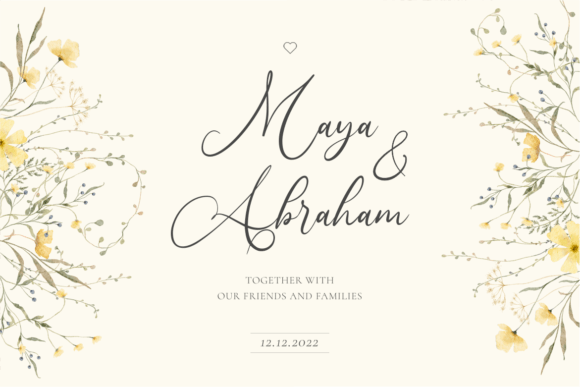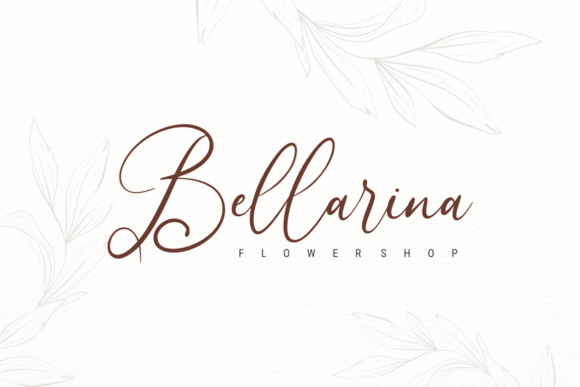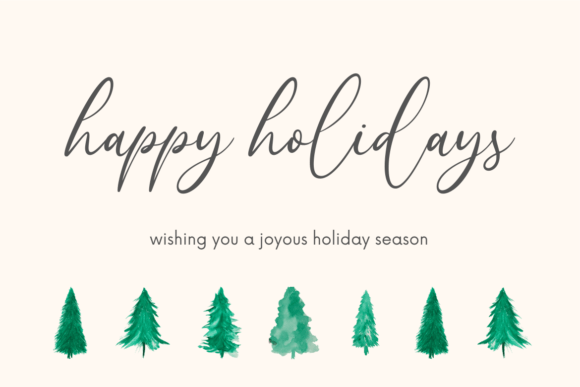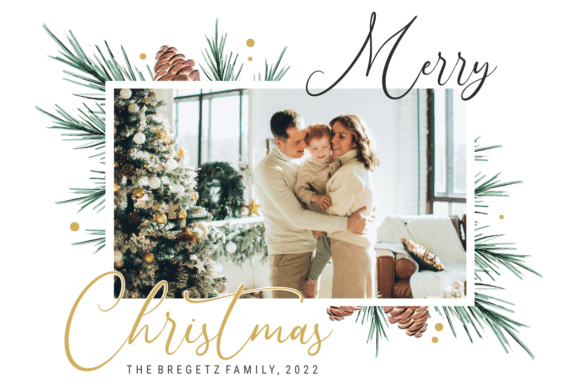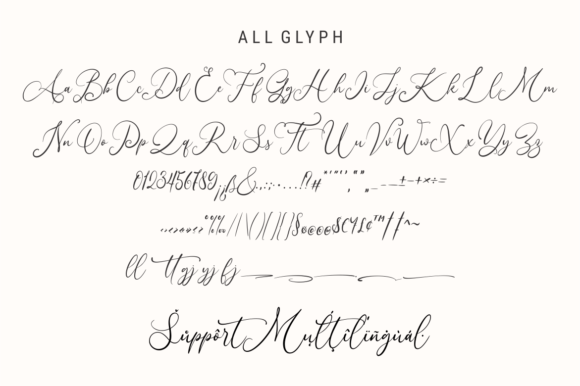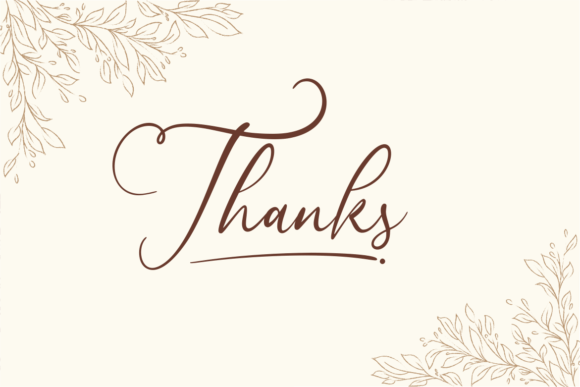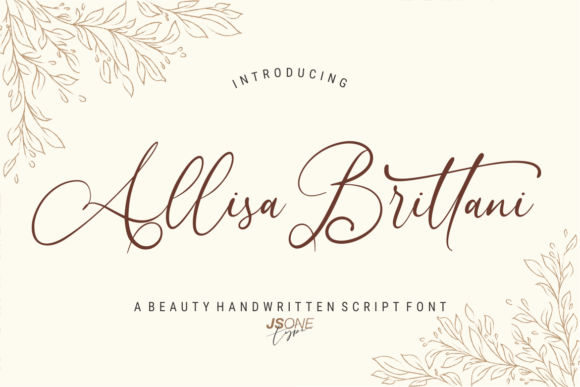
Allisa Brittani Font
About Allisa Brittani Font
Allisa Brittani font is a delicate and elegant handwritten script designed to bring style and romance to any creative project. When you download Allisa Brittani font, you unlock a versatile typeface that works beautifully across a wide range of applications. From heartfelt greeting cards to bold headlines, this font adds a refined and romantic touch that captures attention effortlessly.
Delicate Elegance in Every Letter
The charm of Allisa Brittani font lies in its delicate strokes and smooth flow. It combines elegance with a stylish handwritten feel, making it an excellent choice for designers seeking to evoke emotion through typography. Download Allisa Brittani font to create soft, inviting designs that resonate with your audience.
Perfect for Romantic and Formal Designs
Whether you are working on wedding invitations, love letters, or romantic branding projects, Allisa Brittanifont fits seamlessly. Its graceful style enhances any design, lending an air of sophistication and heartfelt emotion. This font is also ideal for magazine headlines, social media posts, and product packaging where a touch of romance is desired.
Versatility That Inspires Creativity
Allisa Brittanifont offers remarkable versatility. Its delicate yet clear characters make it suitable for both small and large-scale projects. Download Allisa Brittanifont to add charm and personality to your creative work without sacrificing readability or professionalism.